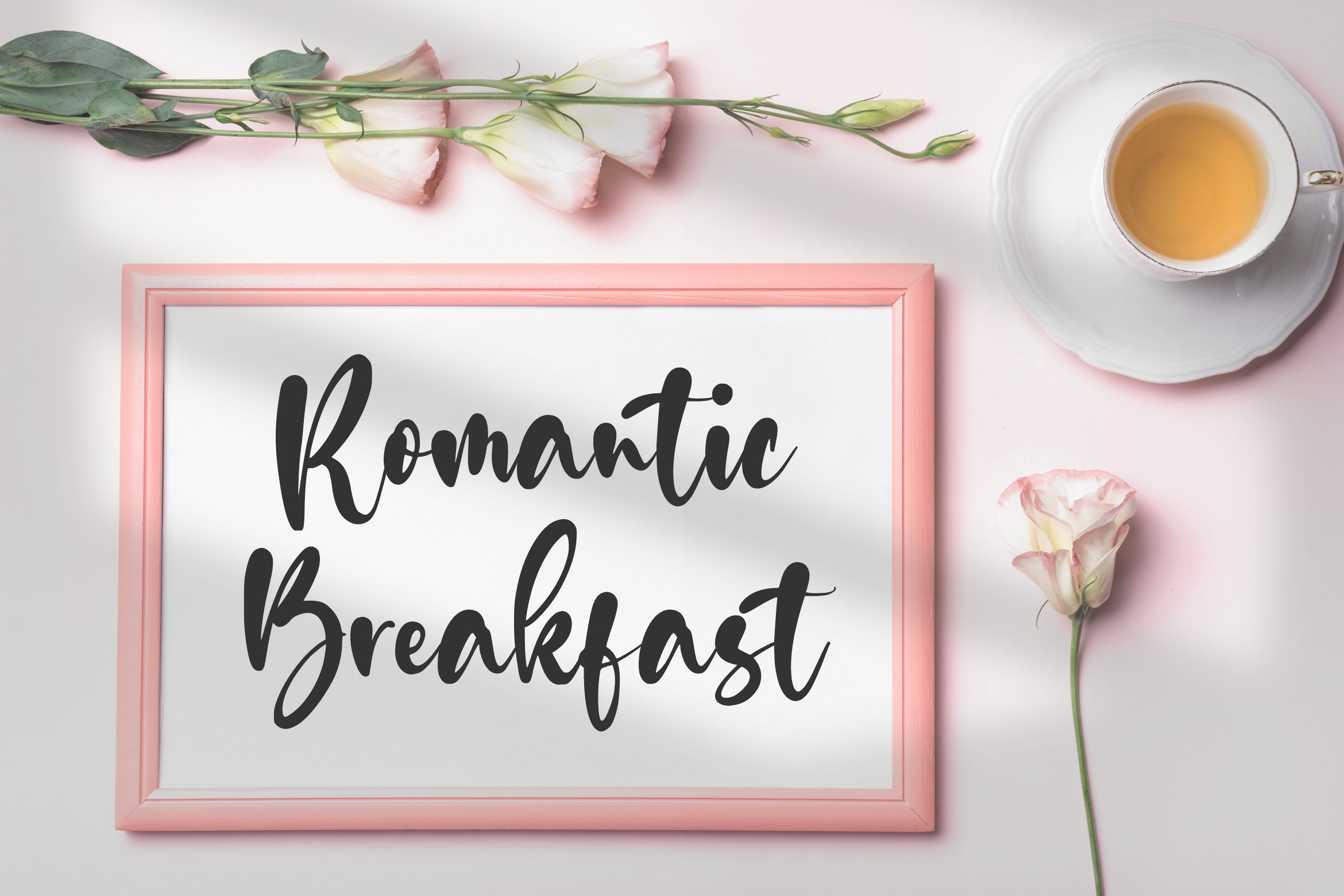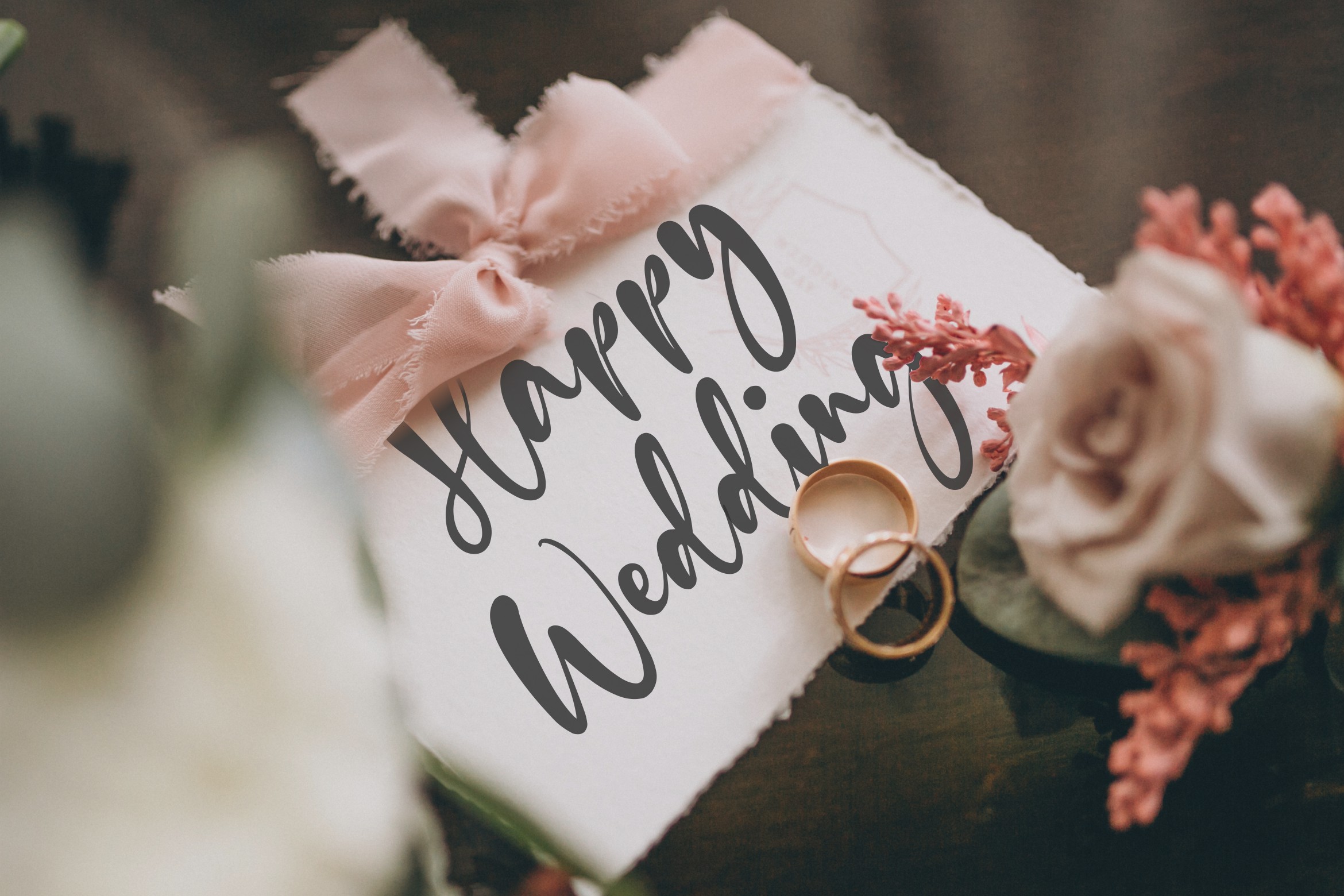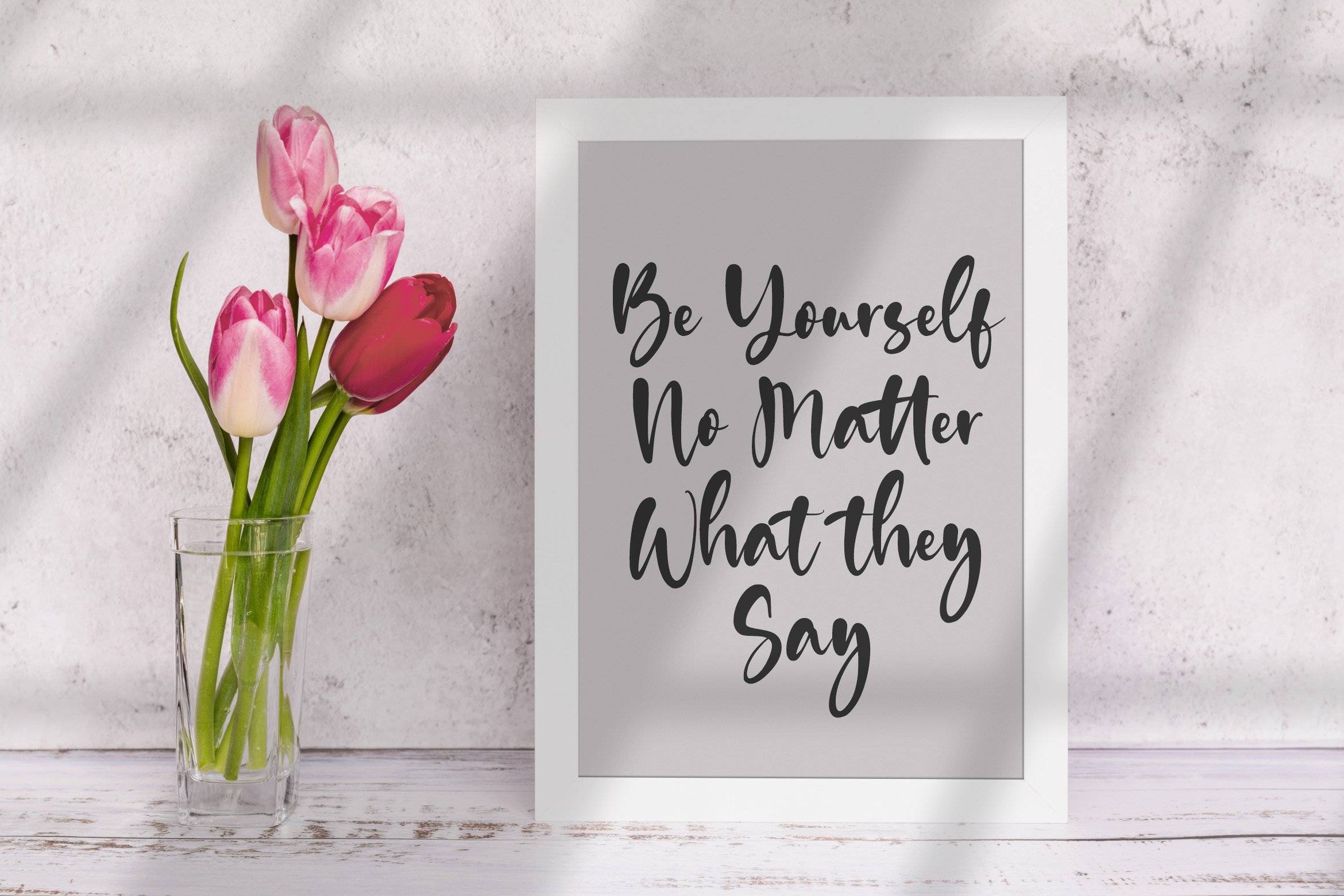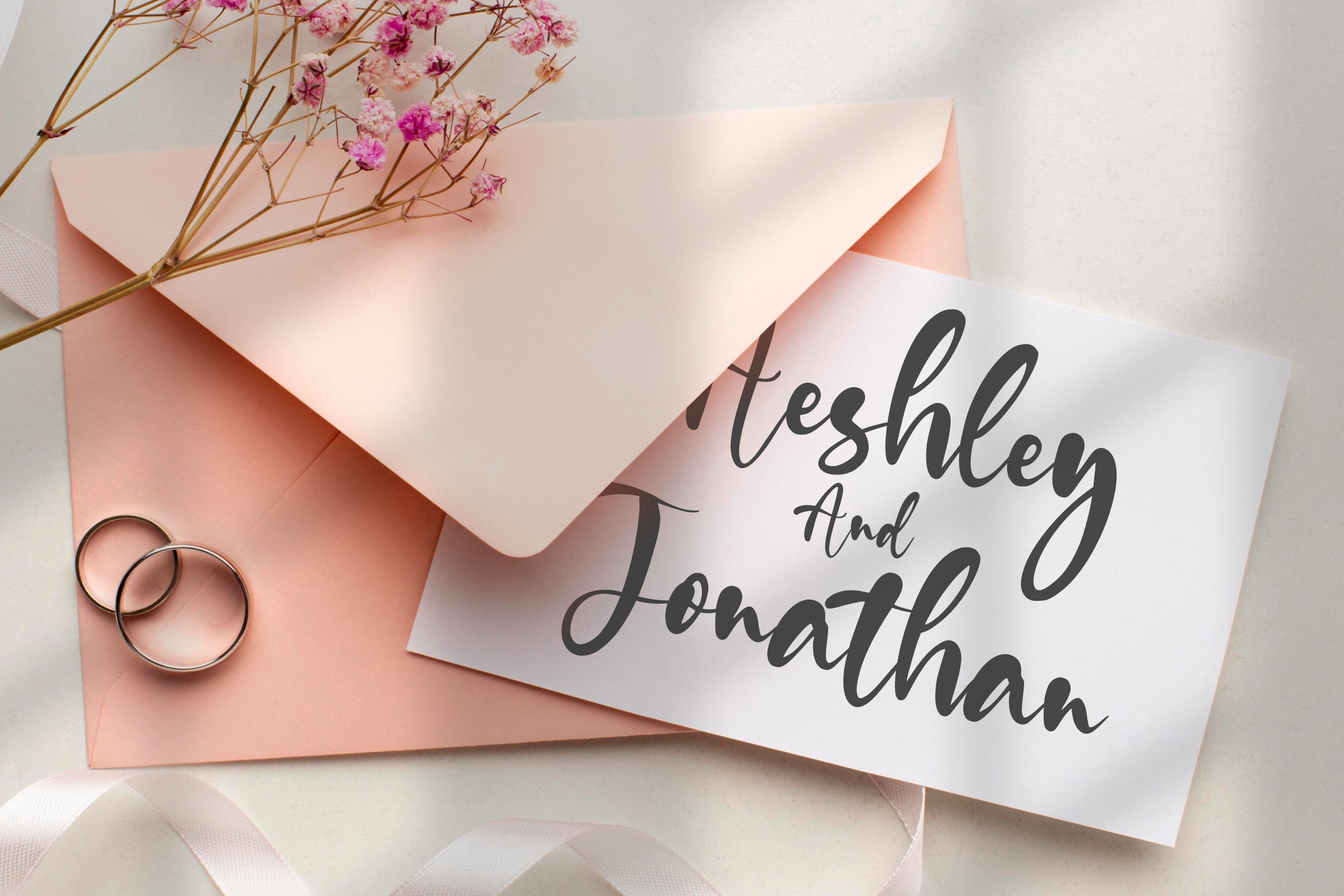
Smilewave Font
Proudly Present, Smilewave Font is a thin-lettered and refined script font that emanates sophistication and elegance. Its stylish alternates and ligatures make this font the perfect match for any project.